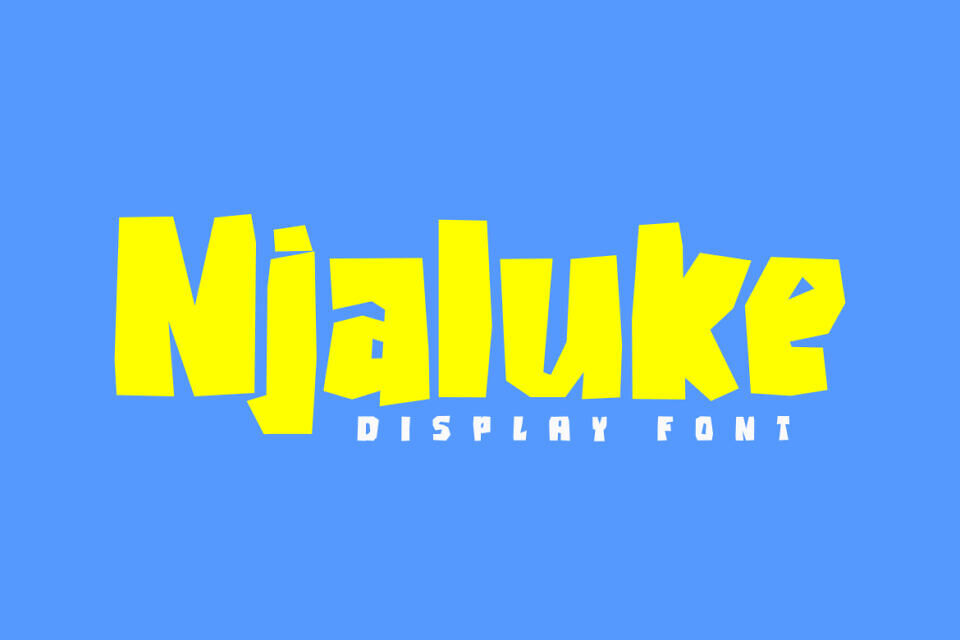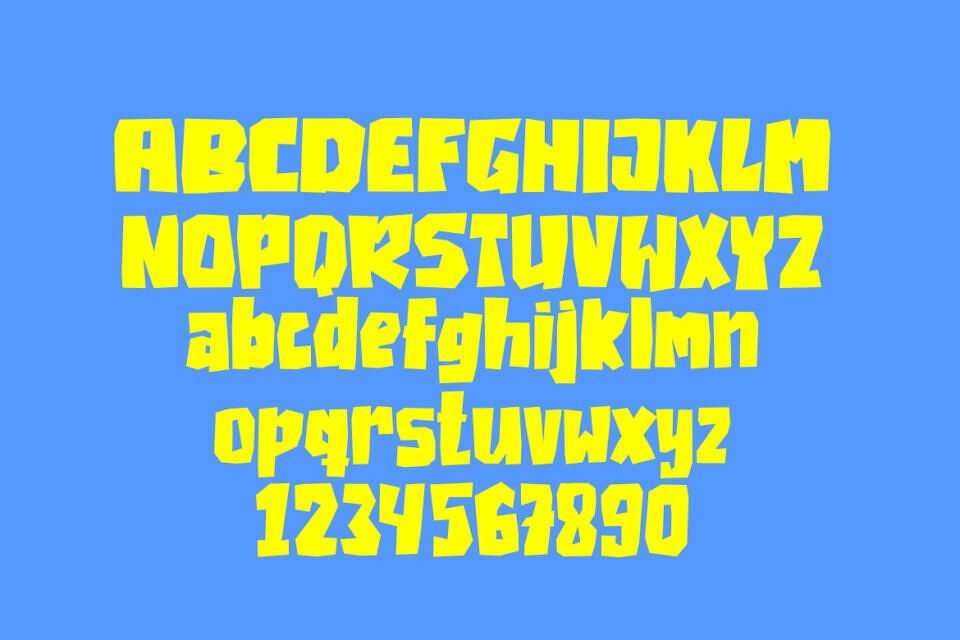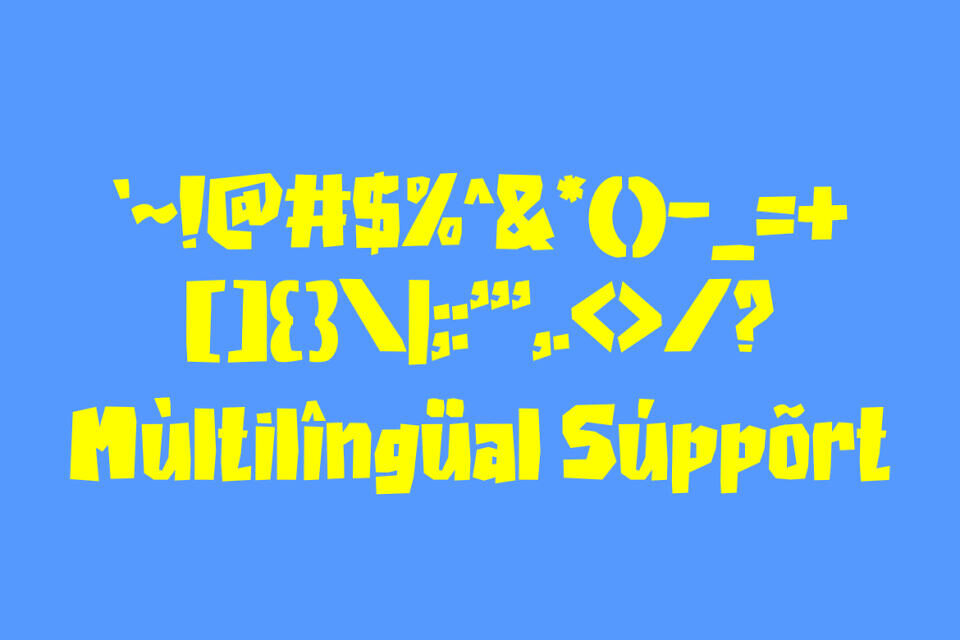
Njaluke Font
Njaluke by GFRcreative is a playful display typeface characterized by its fun, energetic aesthetic. Perfect for projects aimed at younger audiences or game-related design, this font brings a vibrant, casual personality to any layout.